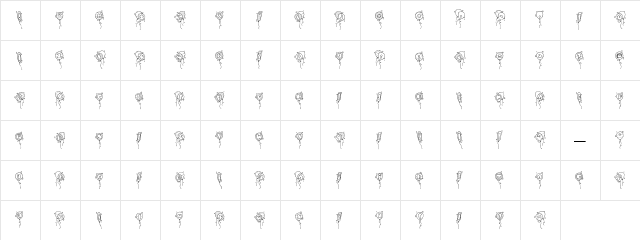
LDJ BirthdayBalloons Regular Font Preview
LDJ BirthdayBalloons Regular
Design Context for LDJ BirthdayBalloons Typeface
LDJ BirthdayBalloons is a composed and adaptable typeface that performs quietly and consistently across a wide range of design contexts.
Pro Tip: Use LDJ BirthdayBalloons in both headline and body roles to test its range before committing to a single application.